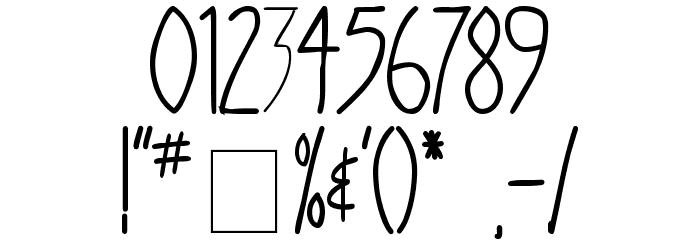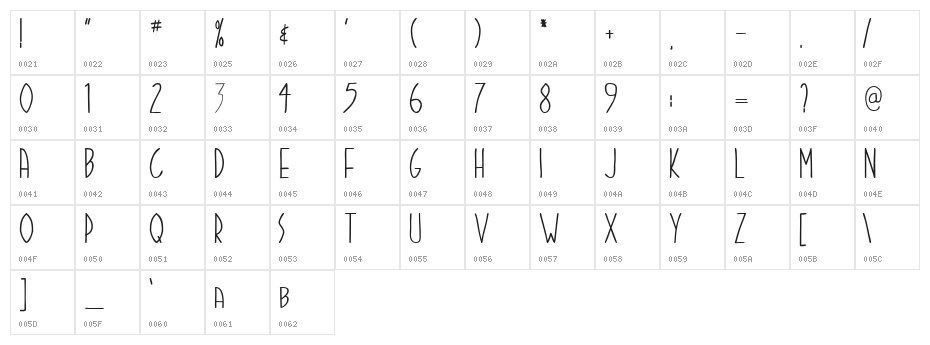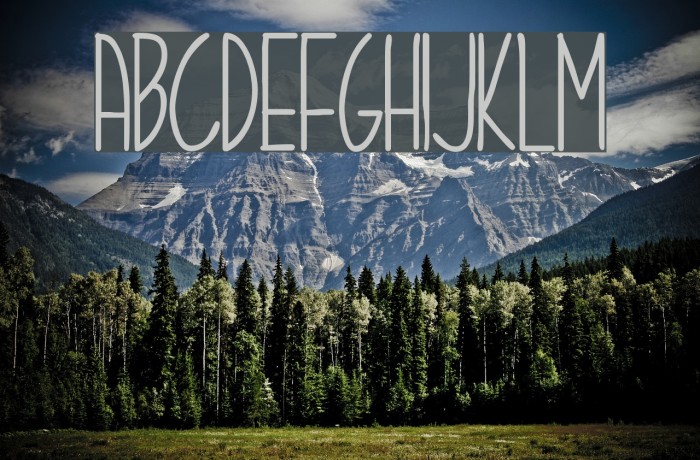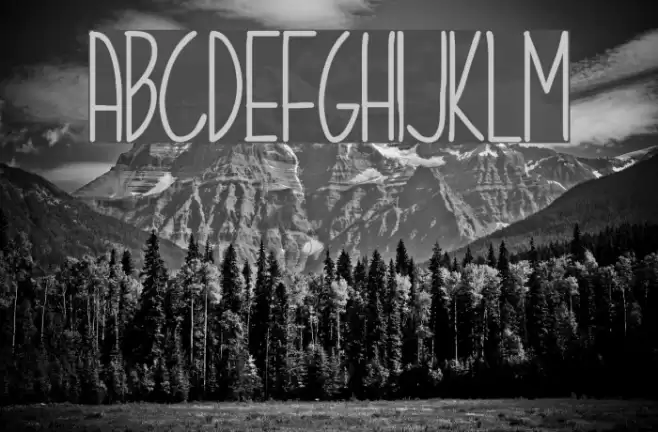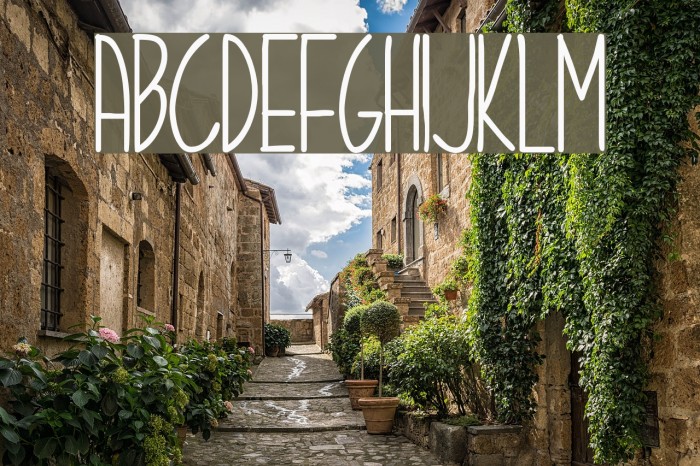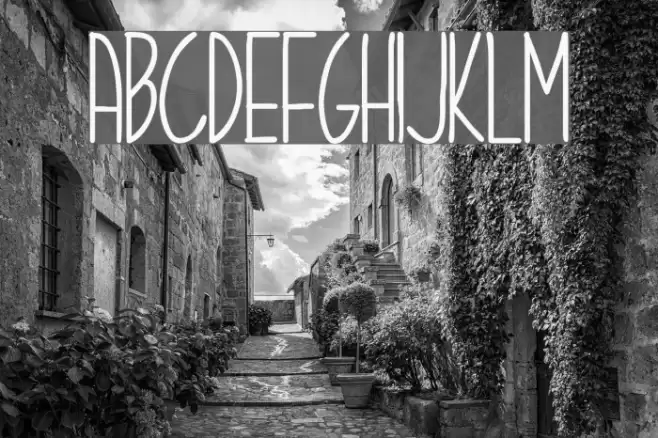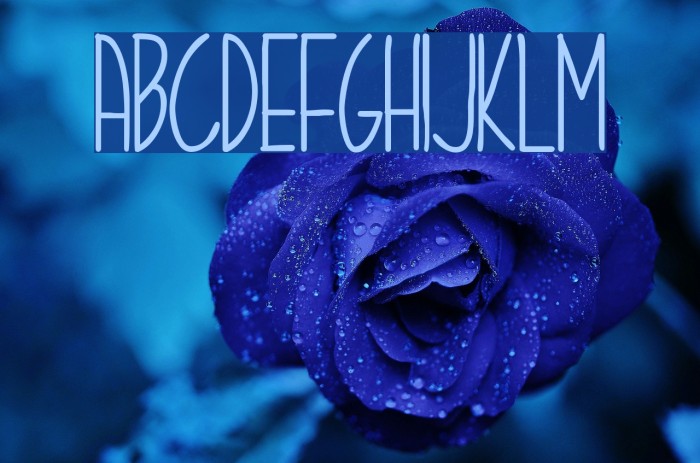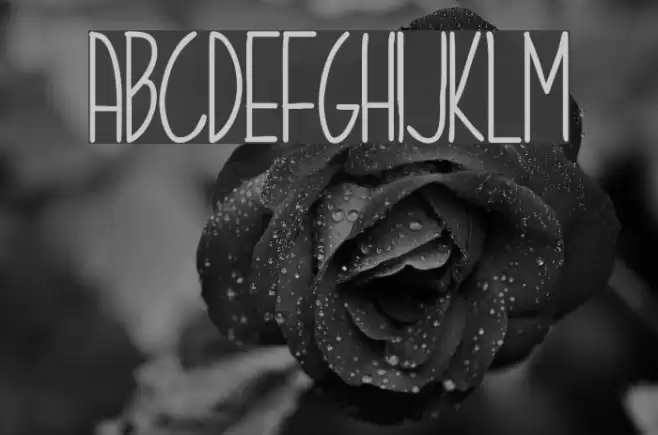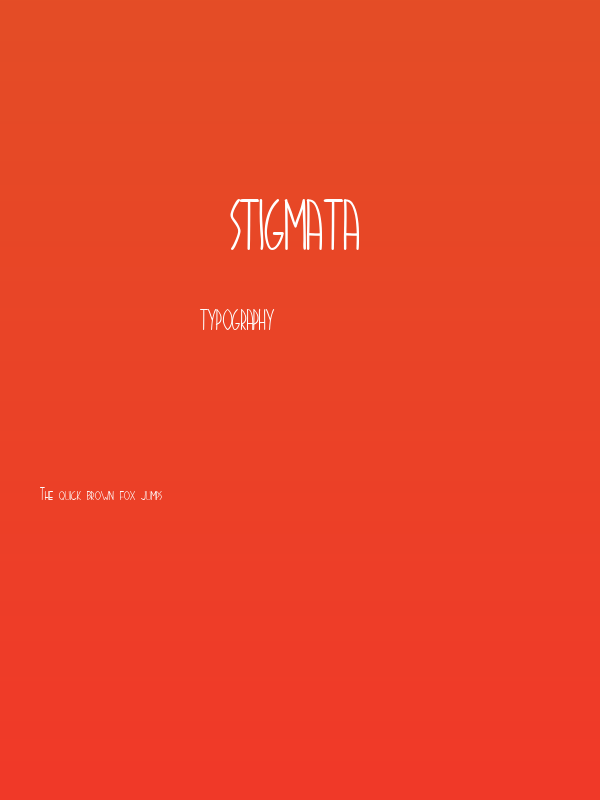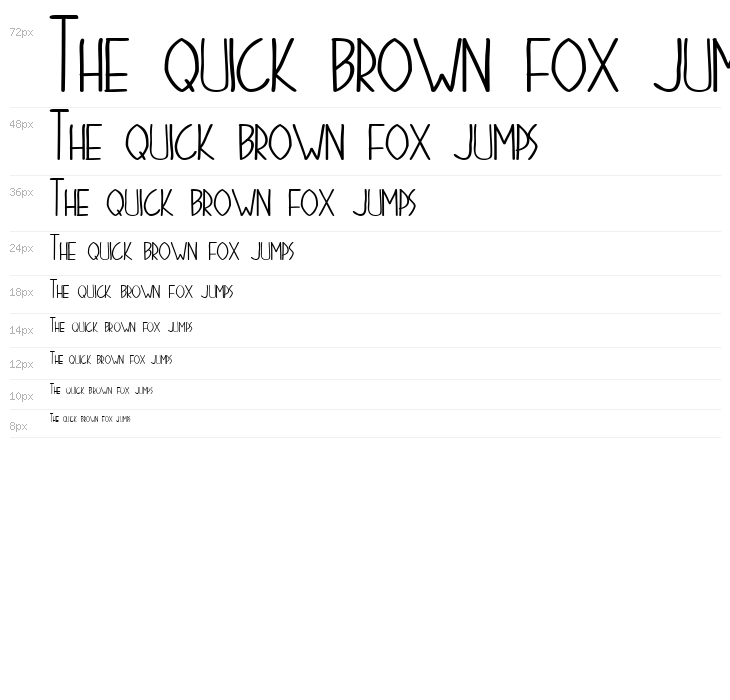
Stigmata Font
Stigmata Description
This font features a unique, elongated design with a playful and artistic flair. The characters are tall and narrow, giving a sense of elegance and modernity. The strokes are consistent in width, providing a clean and uniform appearance. The uppercase and lowercase letters maintain a cohesive style, with rounded edges and smooth curves that add to its approachable and friendly look. The numerals are distinct and easily readable, complementing the overall aesthetic. Special characters are thoughtfully designed, fitting seamlessly with the rest of the font. This font's distinctive style makes it suitable for creative and artistic projects.
| Proposed Projects | Ideal for creative projects, branding, posters, and artistic designs. |